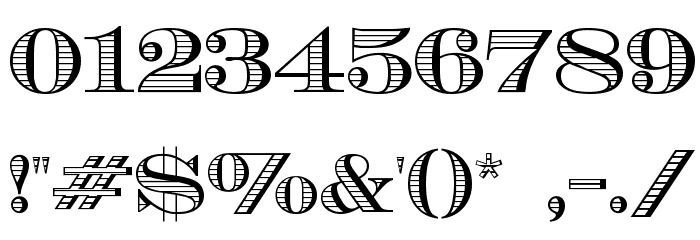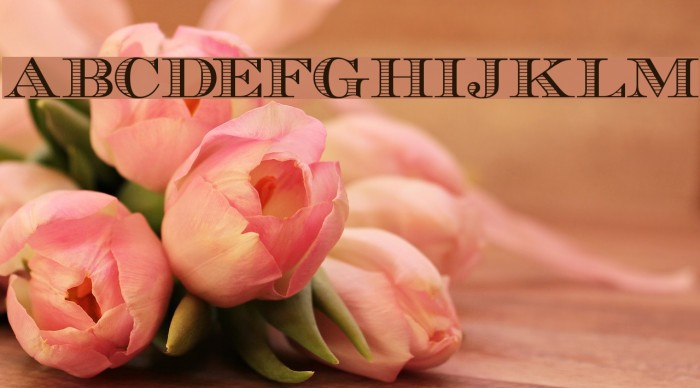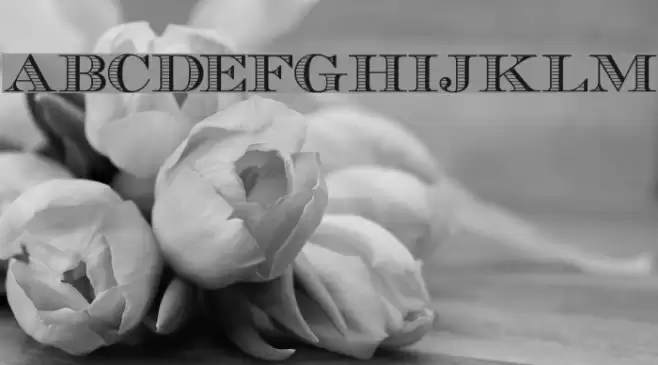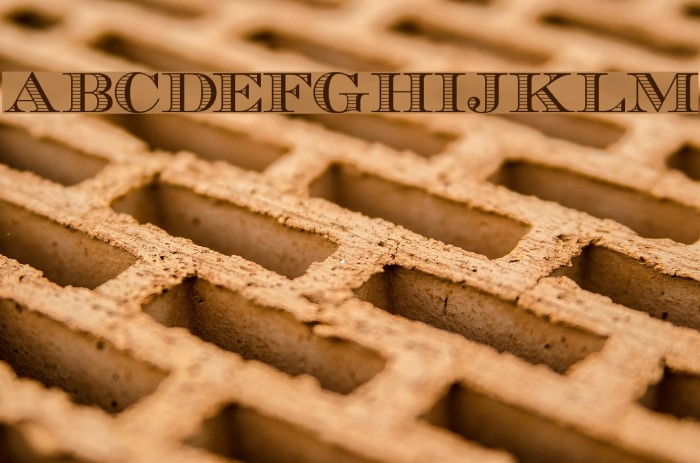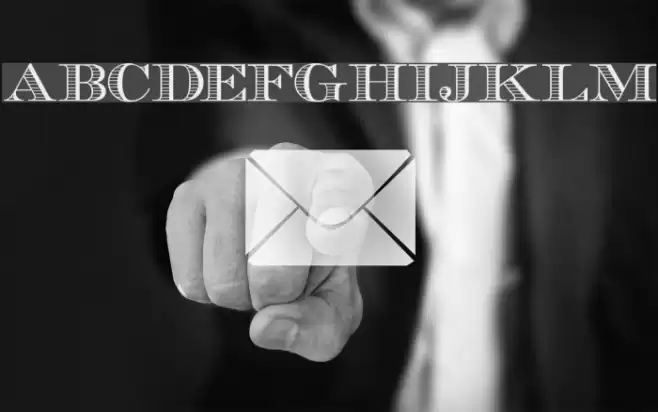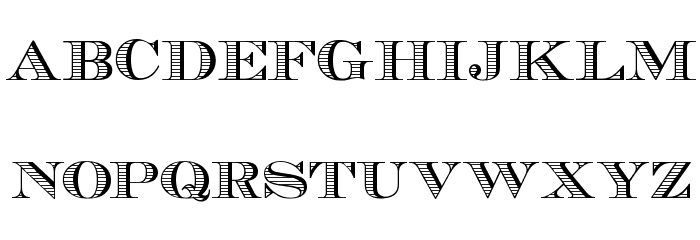
EcuyerDAX Font
EcuyerDAX Description
This font features a unique decorative style with a striped pattern running through each character, giving it a distinct and eye-catching appearance. The uppercase and lowercase letters maintain a consistent design, with bold, geometric shapes that are both modern and classic. The numerals and special characters follow the same pattern, ensuring a cohesive look across all elements. The font's design is reminiscent of vintage signage, yet it has a contemporary twist that makes it versatile for various design projects. The characters are well-spaced, providing a balanced and readable text, even with the intricate detailing.